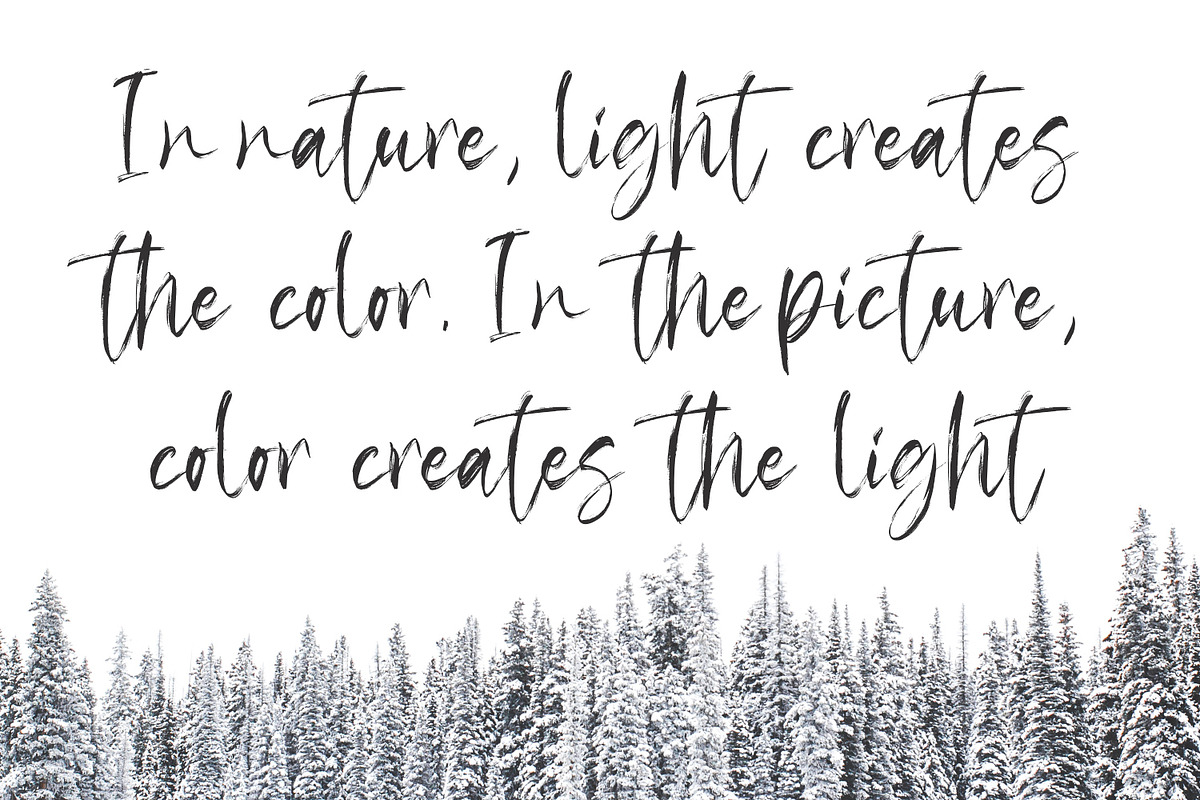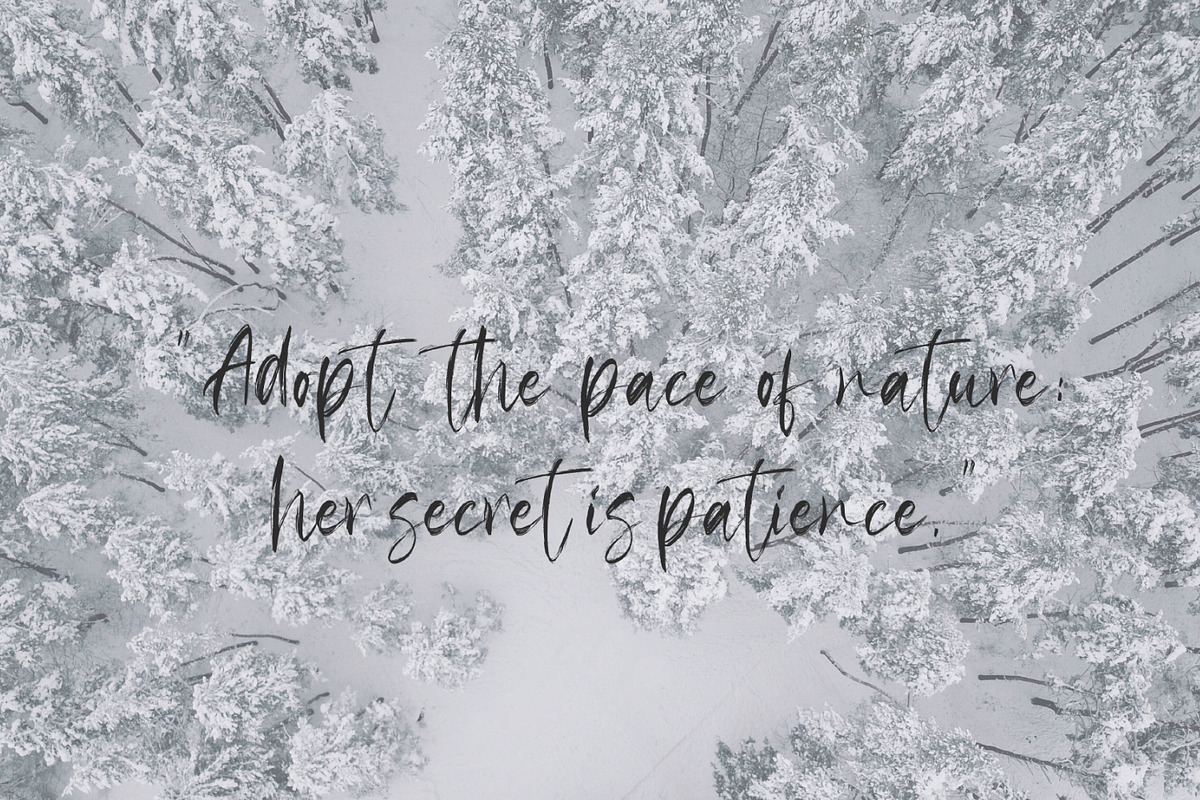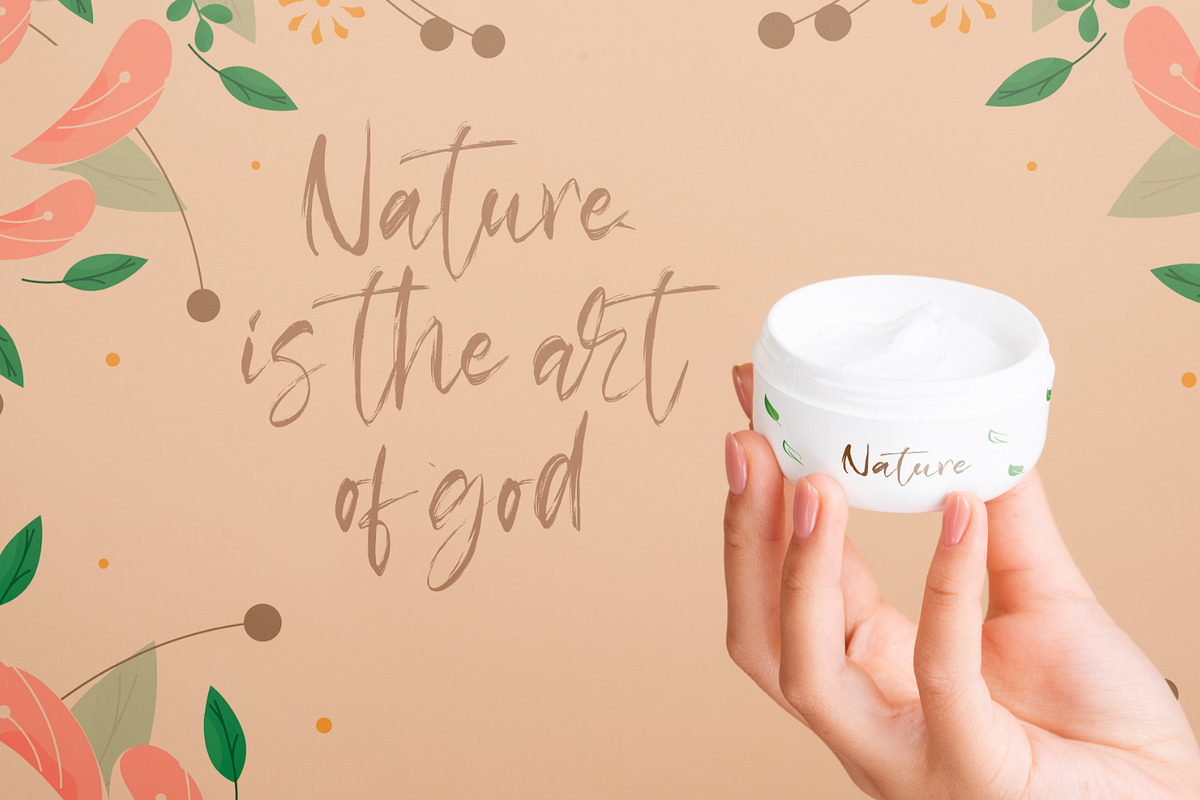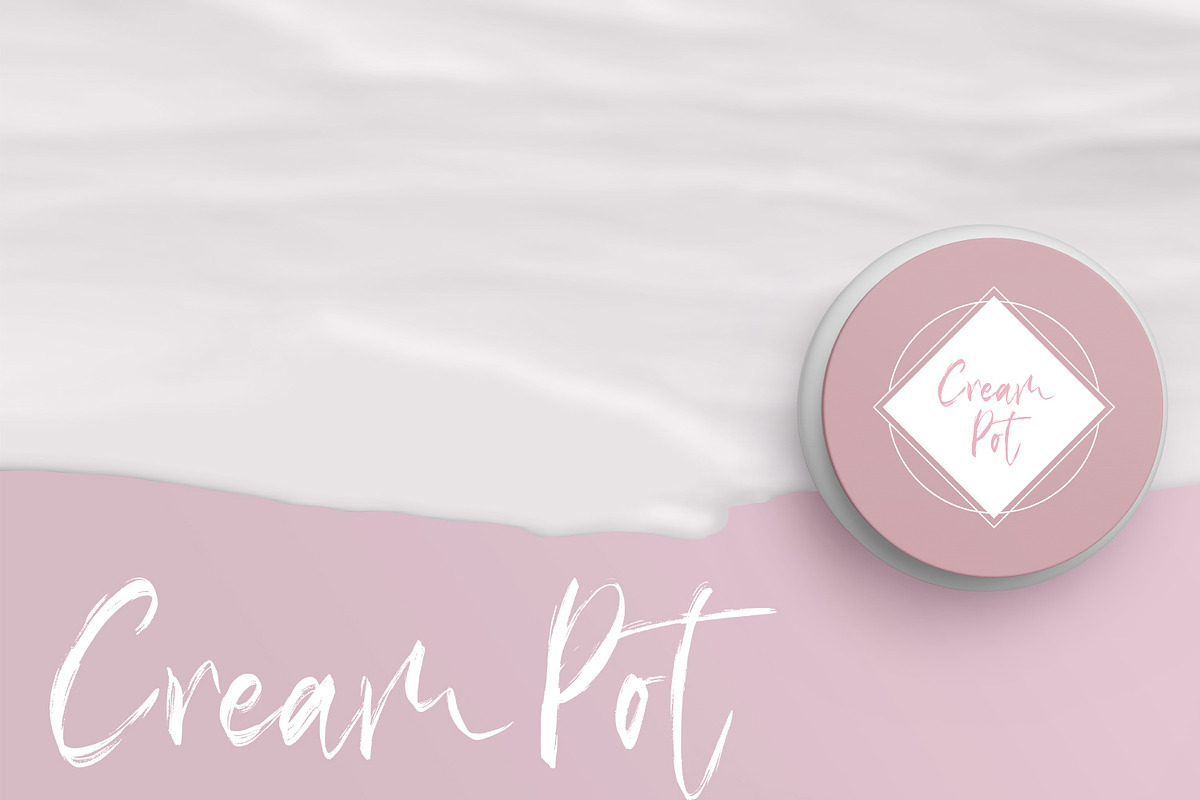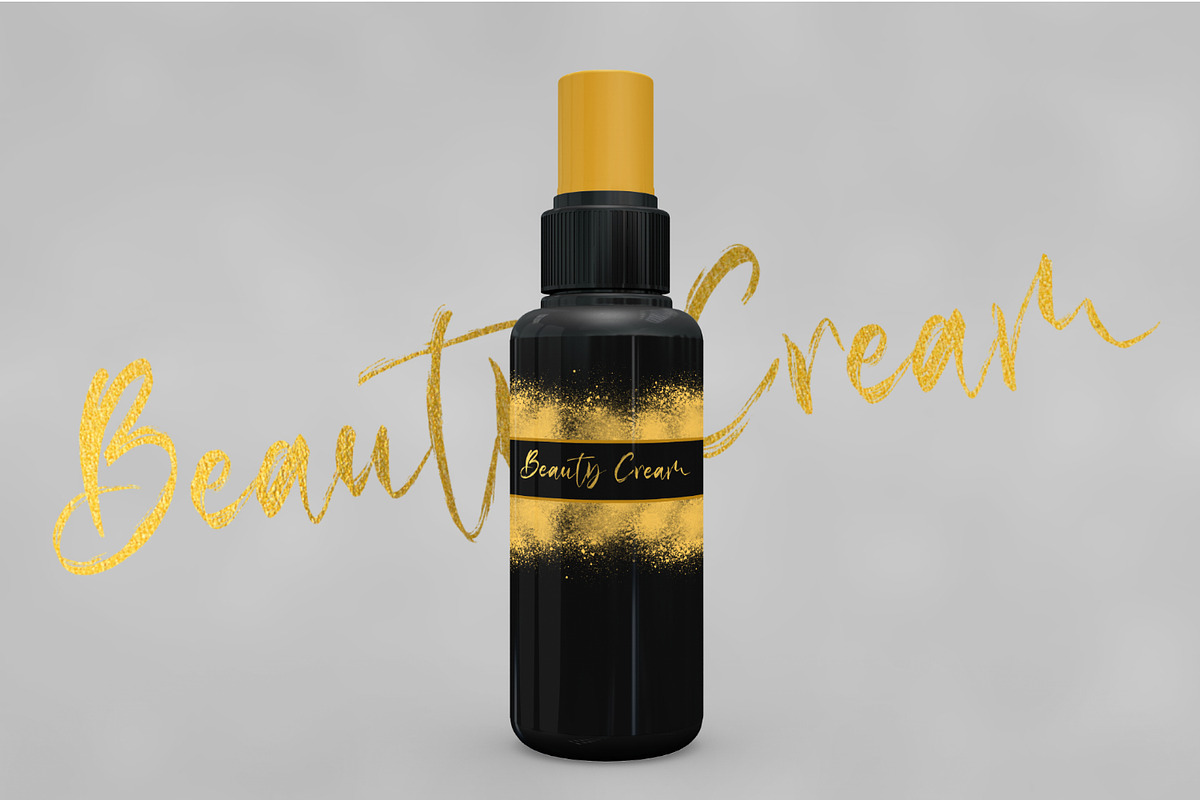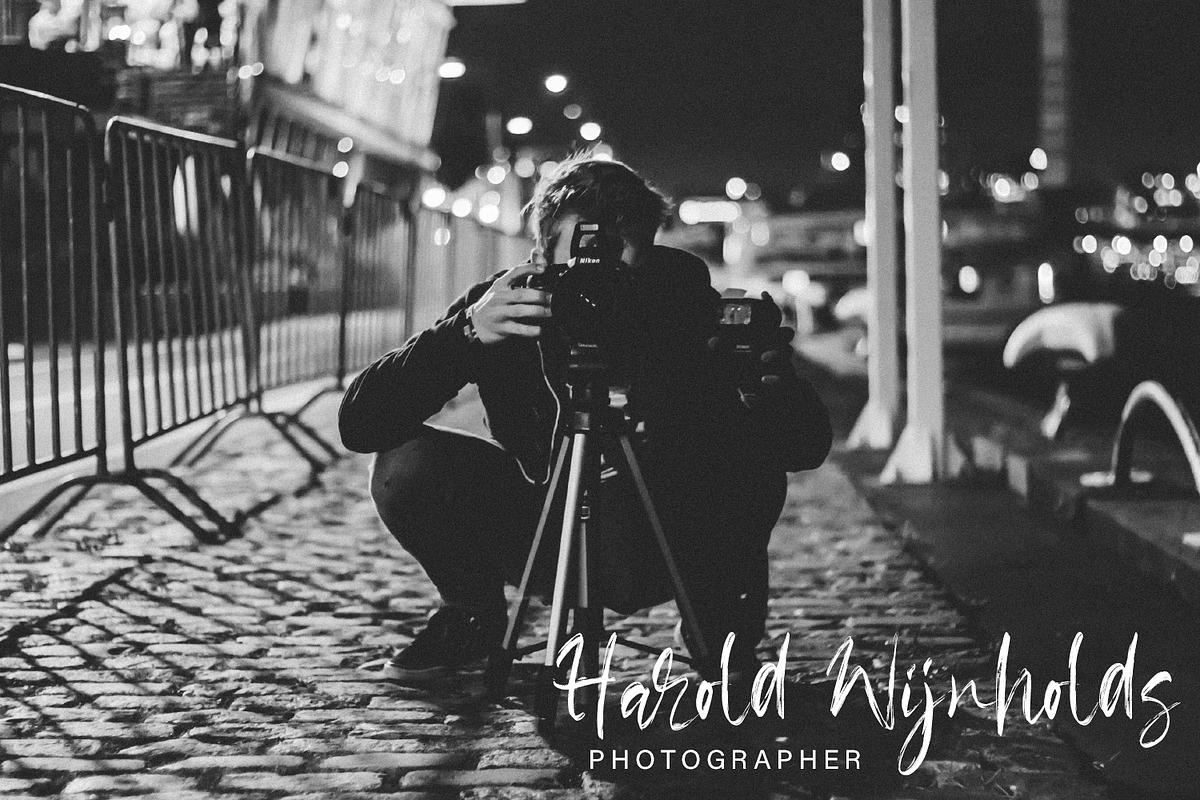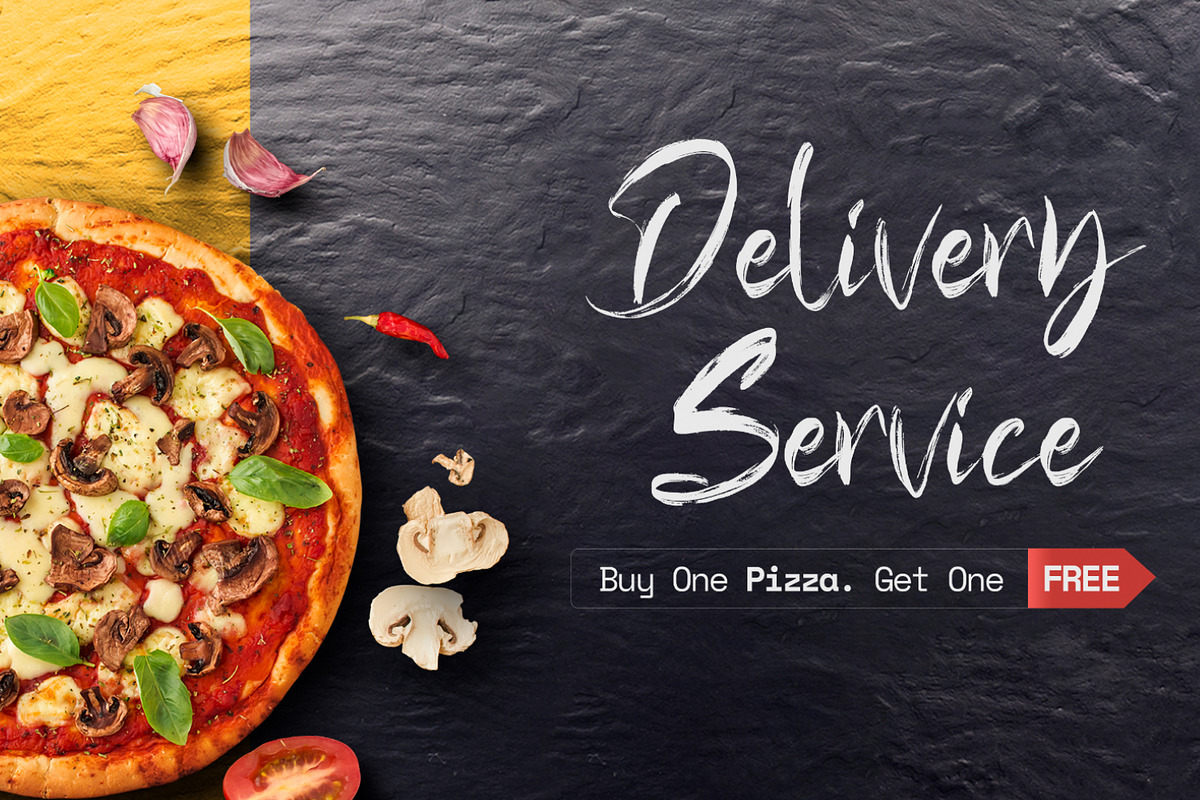
Klasted - Brush Font
Klasted - Brush Script Font is a font with distinctive handwritten characters perfect for branding projects, logos, wedding designs, media posts, advertisements, product packaging, product designs, labels, photography, watermarks, invitations, stationery, and any project who need handwritten dishes.
Klasted - Brush Font by Arendxstudio fits naturally into Branding, posters, packaging, typography.